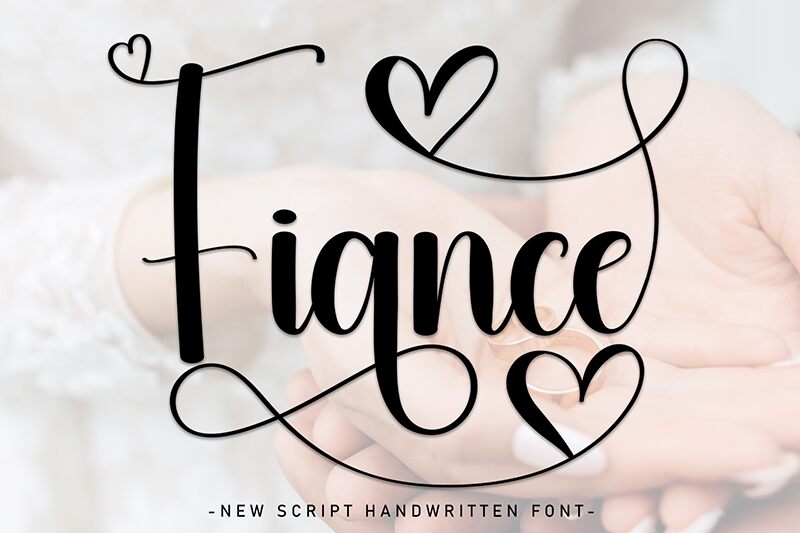
Fiance
Fiance font by Andi Moz is a handwritten free font that embodies a flawless blend of delicacy and romance. Combining elegance with modernity, it features smooth curves and decorative elements that will add charm to any project. Whimsical in nature, this typeface has been focused on creating a flowing and eye-catching appearance.
Incorporate the romantic Fiance font into wedding invitations, posters, greeting cards, photographs, branding projects, cosmetics advertising campaigns, fashion magazines, or even Instagram post layouts. As one of the most elegant calligraphy fonts around, its luxurious style can be used to achieve all your heart’s desires effortlessly!